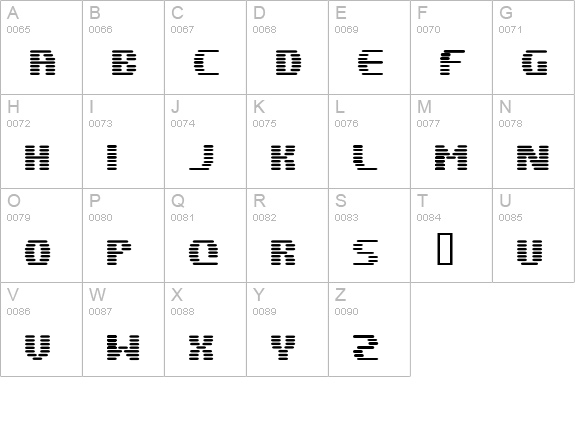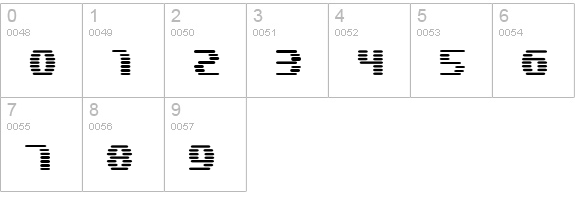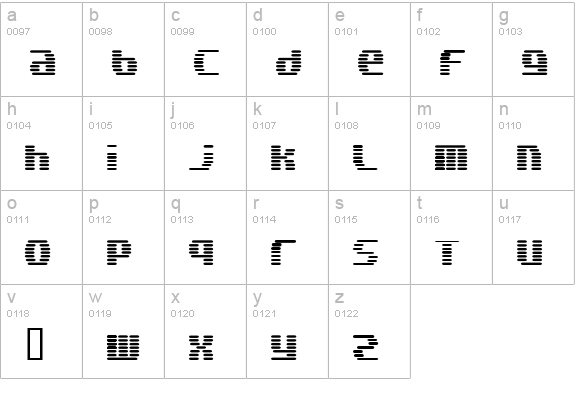
Laserdriï¿¿er Font Details
Laserdriï¿¿er font, a stunning display typeface that will bring a futuristic touch to your designs. With its sleek and sharp lines, this font is perfect for projects that require a modern and cutting-edge look. Laserdriï¿¿er font exudes a sense of precision and boldness, making it ideal for headlines, logos, and branding materials. The unique design of Laserdriï¿¿er font captures the essence of laser technology, with its clean and geometric shapes. Each character is meticulously crafted to maintain a perfect balance between elegance and readability, ensuring that your message is conveyed with utmost clarity. But what makes Laserdriï¿¿er font even more appealing is that it is free! That's right, you can download this extraordinary font without spending a dime. Simply head over to FontsMarket.com, and you will have access to this amazing typeface instantly. Whether you are a professional designer or a creative enthusiast, Laserdriï¿¿er font offers you the opportunity to elevate your projects without breaking the bank. So why wait? Discover the power of Laserdriï¿¿er font today and unleash your creativity like never before. Download this exceptional font at FontsMarket.com and let its sleek and futuristic aesthetic transform your designs into works of art.